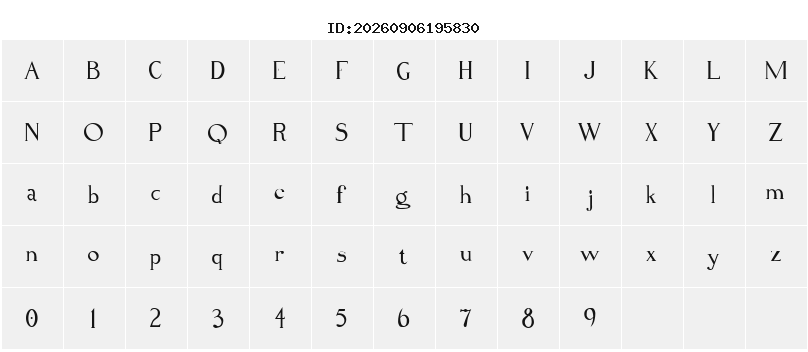
• Font Name: unprofesional
• Full Font Name: unprofesional
About unprofesional.ttf
unprofesional.ttf is a modern, elegant sans-serif font designed for ultimate readability and visual harmony. Perfect for branding, headlines, web design, and print materials.